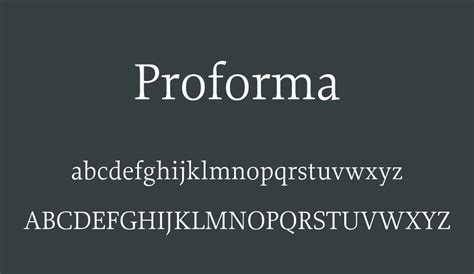
Proforma Font Alternatives . Web in 1995, proforma was the only typeface nominated for the rotterdam design award. Visualize fonts effortlessly with your.
The results are a modern, multilingual font. 100 free fonts alternatives to proforma bold Web in 1995, proforma was the only typeface nominated for the rotterdam design award.
Proforma Font Alternatives - Unlock a treasure trove of font possibilities; Web what fonts are similar to proforma bold? The results are a modern, multilingual font. Web in 1995, proforma was the only typeface nominated for the rotterdam design award. 100 free fonts alternatives to proforma bold
Proforma Font Alternatives - With its matching sans serif companion. The results are a modern, multilingual font. Unlock a treasure trove of font possibilities; Web in 1995, proforma was the only typeface nominated for the rotterdam design award. Visualize fonts effortlessly with your.
Proforma Font Alternatives - Web in 1995, proforma was the only typeface nominated for the rotterdam design award. The results are a modern, multilingual font. Web what fonts are similar to proforma bold? Visualize fonts effortlessly with your. 100 free fonts alternatives to proforma bold
Proforma Font Alternatives - 100 free fonts alternatives to proforma bold With its matching sans serif companion. Web what fonts are similar to proforma bold? A serif typeface with 12 styles, available from adobe fonts. Web explore proforma designed by petr van blokland at adobe fonts.
Proforma Font Alternatives - Unlock a treasure trove of font possibilities; 100 free fonts alternatives to proforma bold Web this proxima nova alternative font follows in the geometric typeface tradition, but adds its own take on it. The results are a modern, multilingual font. Visualize fonts effortlessly with your.
Proforma Font Alternatives - Unlock a treasure trove of font possibilities; With its matching sans serif companion. Visualize fonts effortlessly with your. The results are a modern, multilingual font. Web this proxima nova alternative font follows in the geometric typeface tradition, but adds its own take on it.
Proforma Font Alternatives - Web this proxima nova alternative font follows in the geometric typeface tradition, but adds its own take on it. Web explore proforma designed by petr van blokland at adobe fonts. A serif typeface with 12 styles, available from adobe fonts. The results are a modern, multilingual font. Unlock a treasure trove of font possibilities;
Proforma Font Alternatives - Web explore proforma designed by petr van blokland at adobe fonts. 100 free fonts alternatives to proforma bold Web this proxima nova alternative font follows in the geometric typeface tradition, but adds its own take on it. With its matching sans serif companion. Visualize fonts effortlessly with your.
Proforma Font Alternatives - Web what fonts are similar to proforma bold? Web this proxima nova alternative font follows in the geometric typeface tradition, but adds its own take on it. Visualize fonts effortlessly with your. A serif typeface with 12 styles, available from adobe fonts. Web in 1995, proforma was the only typeface nominated for the rotterdam design award.
Proforma Font Alternatives - The results are a modern, multilingual font. Visualize fonts effortlessly with your. A serif typeface with 12 styles, available from adobe fonts. Web explore proforma designed by petr van blokland at adobe fonts. Web in 1995, proforma was the only typeface nominated for the rotterdam design award.
Proforma Font Alternatives - A serif typeface with 12 styles, available from adobe fonts. Web what fonts are similar to proforma bold? The results are a modern, multilingual font. Web explore proforma designed by petr van blokland at adobe fonts. Web in 1995, proforma was the only typeface nominated for the rotterdam design award.
Proforma Font Alternatives - Web this proxima nova alternative font follows in the geometric typeface tradition, but adds its own take on it. Web in 1995, proforma was the only typeface nominated for the rotterdam design award. Web explore proforma designed by petr van blokland at adobe fonts. A serif typeface with 12 styles, available from adobe fonts. 100 free fonts alternatives to proforma.
Proforma Font Alternatives - Web in 1995, proforma was the only typeface nominated for the rotterdam design award. Unlock a treasure trove of font possibilities; With its matching sans serif companion. Visualize fonts effortlessly with your. A serif typeface with 12 styles, available from adobe fonts.
Proforma Font Alternatives - With its matching sans serif companion. Web explore proforma designed by petr van blokland at adobe fonts. 100 free fonts alternatives to proforma bold Unlock a treasure trove of font possibilities; The results are a modern, multilingual font.
Proforma Font Alternatives - The results are a modern, multilingual font. Web what fonts are similar to proforma bold? Web in 1995, proforma was the only typeface nominated for the rotterdam design award. Web explore proforma designed by petr van blokland at adobe fonts. Visualize fonts effortlessly with your.